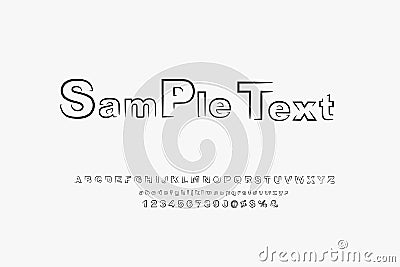
Modern Alphabet, Abstract Font Design, Creative Part Stroke Typography Font Alphabet, Letters, Numbers, Sign And Symbols, Vector Illustration
Modern alphabet, abstract font design, creative part stroke typography font alphabet, letters, numbers, sign and symbols, Vector Illustration